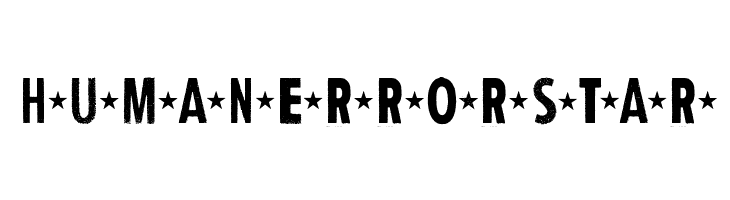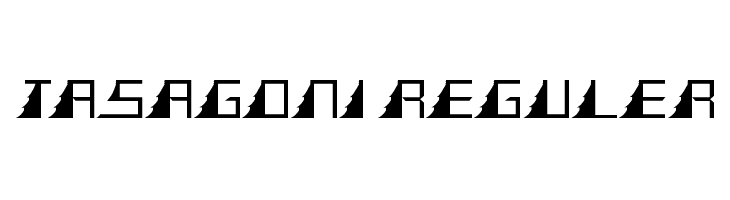
A futuristic and angular font with geometric elements and bold design.
A bold, stencil-style font with star motifs between characters.
A bold, futuristic font with angular, techno-inspired design.